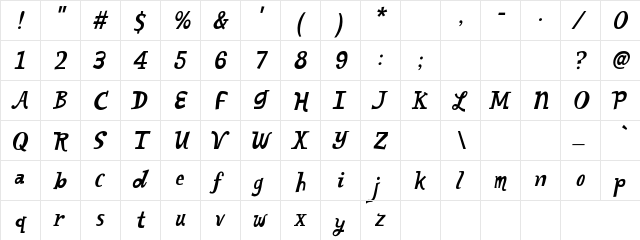
MizdemeanorThreeItalicPKA Regular
Design Context for MizdemeanorThreeItalicPKA Typeface
MizdemeanorThreeItalicPKA is a composed and adaptable typeface that performs quietly and consistently across a wide range of design contexts. Its italic angle brings a sense of urgency and motion to the letterforms.
Pro Tip: Try MizdemeanorThreeItalicPKA for annotation and caption copy alongside an upright companion — the contrast in angle creates a dynamic but ordered typographic system.